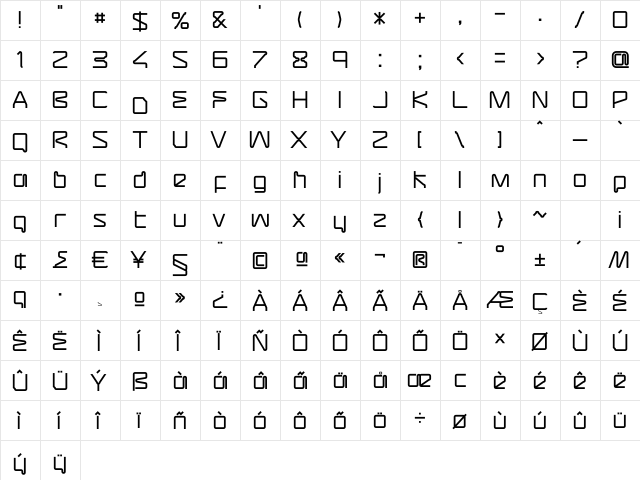
AssemblerRegular Regular
Design Context for AssemblerRegular Typeface
AssemblerRegular takes a measured approach to typography — its balanced proportions and neutral character make it a reliable workhorse for both digital and print work.